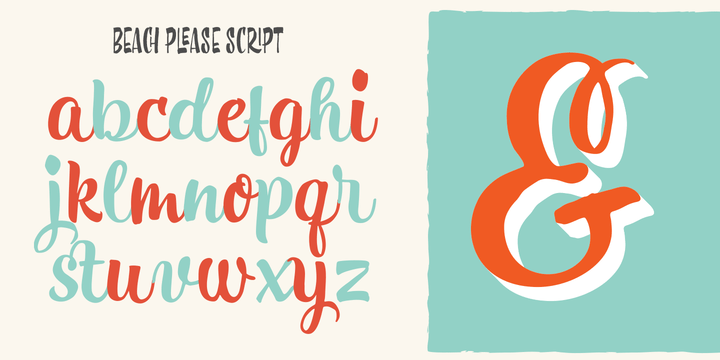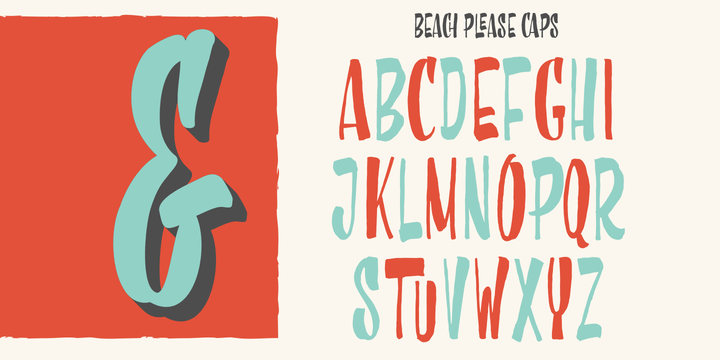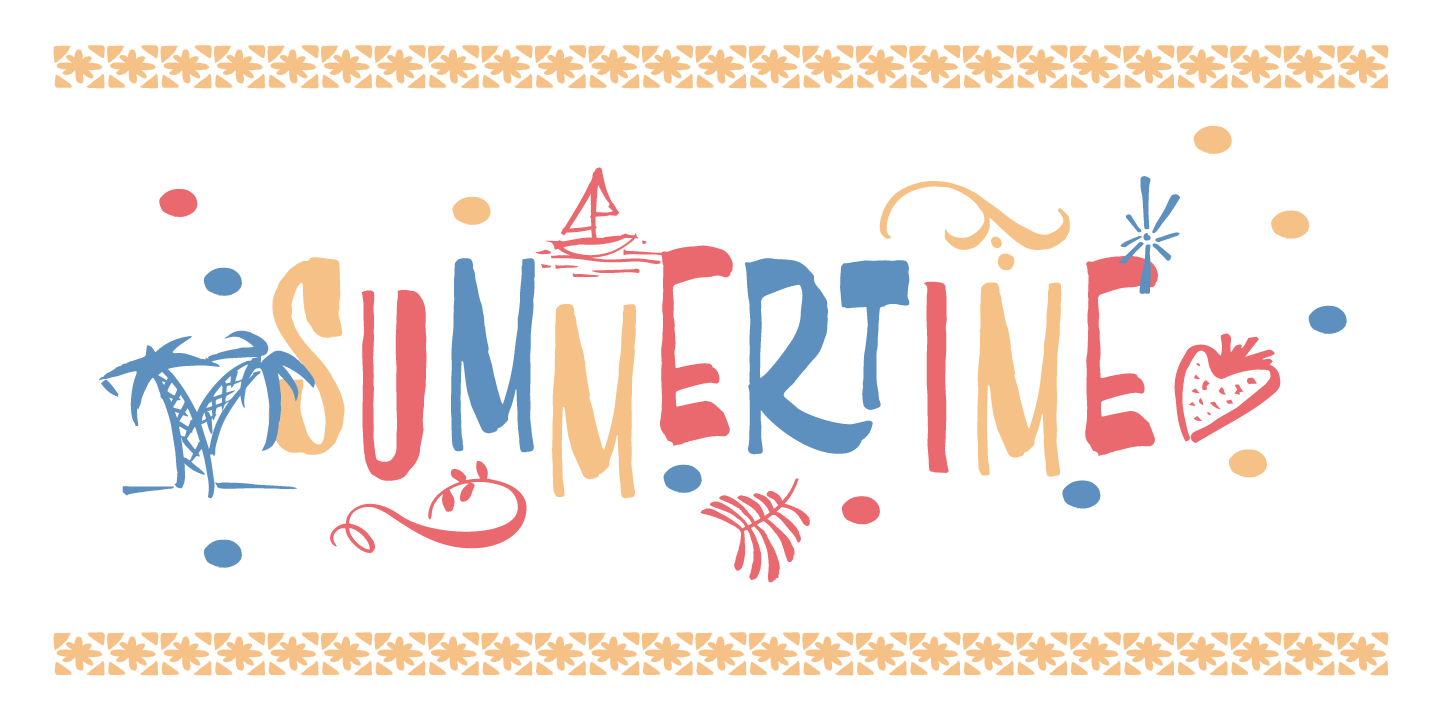
About Beach Please
Beach Please is a suite of handwritten fonts designed with pointed brush and watercolors. Beach Please Script is a relaxed and tender brush font, inspired by sign painting. The aim was to give a fun and fresh twist, exaggerating some curves and punctuation…